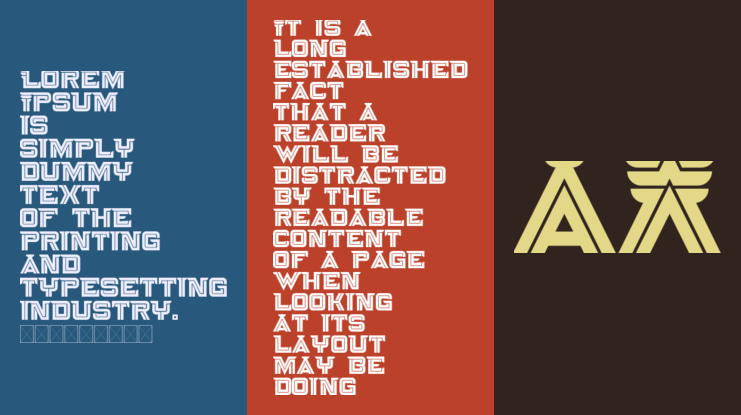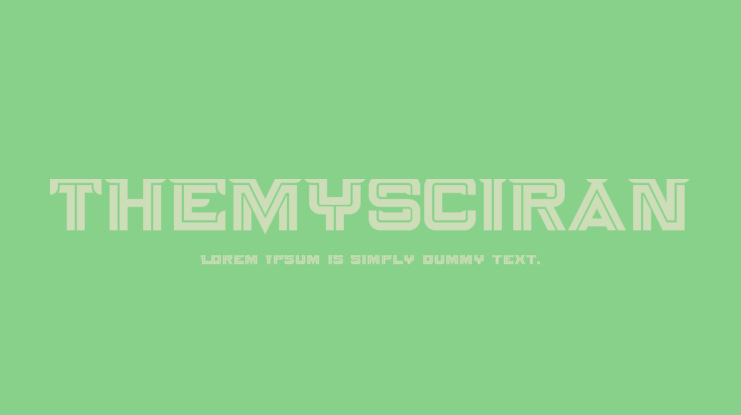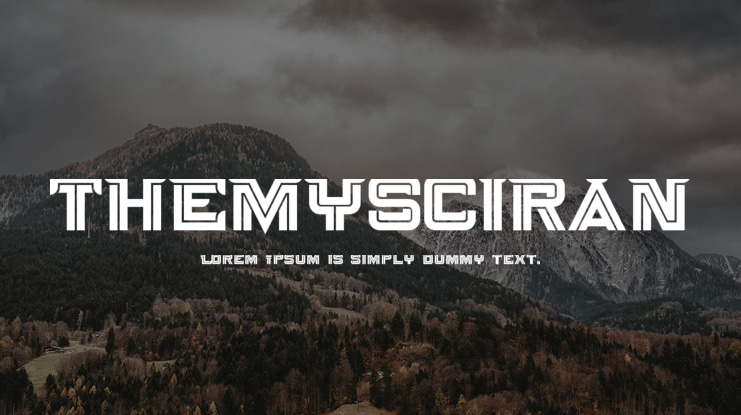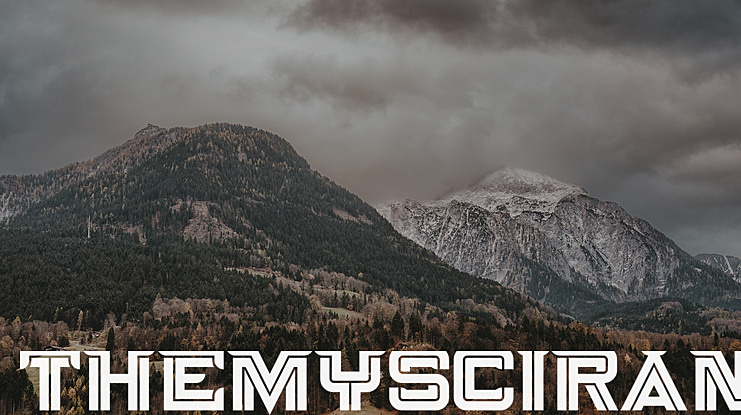
Themysciran Font
Themysciran. Home of Amazonian Princess Diana, aka Wonder Woman. Of course it’s the opening day of the movie about her origin story. Gal Gadot makes the worthiest successor to the TV version with Lynda Carter since 1979. This font is based off of the Wonder Woman logo from DC Comics.